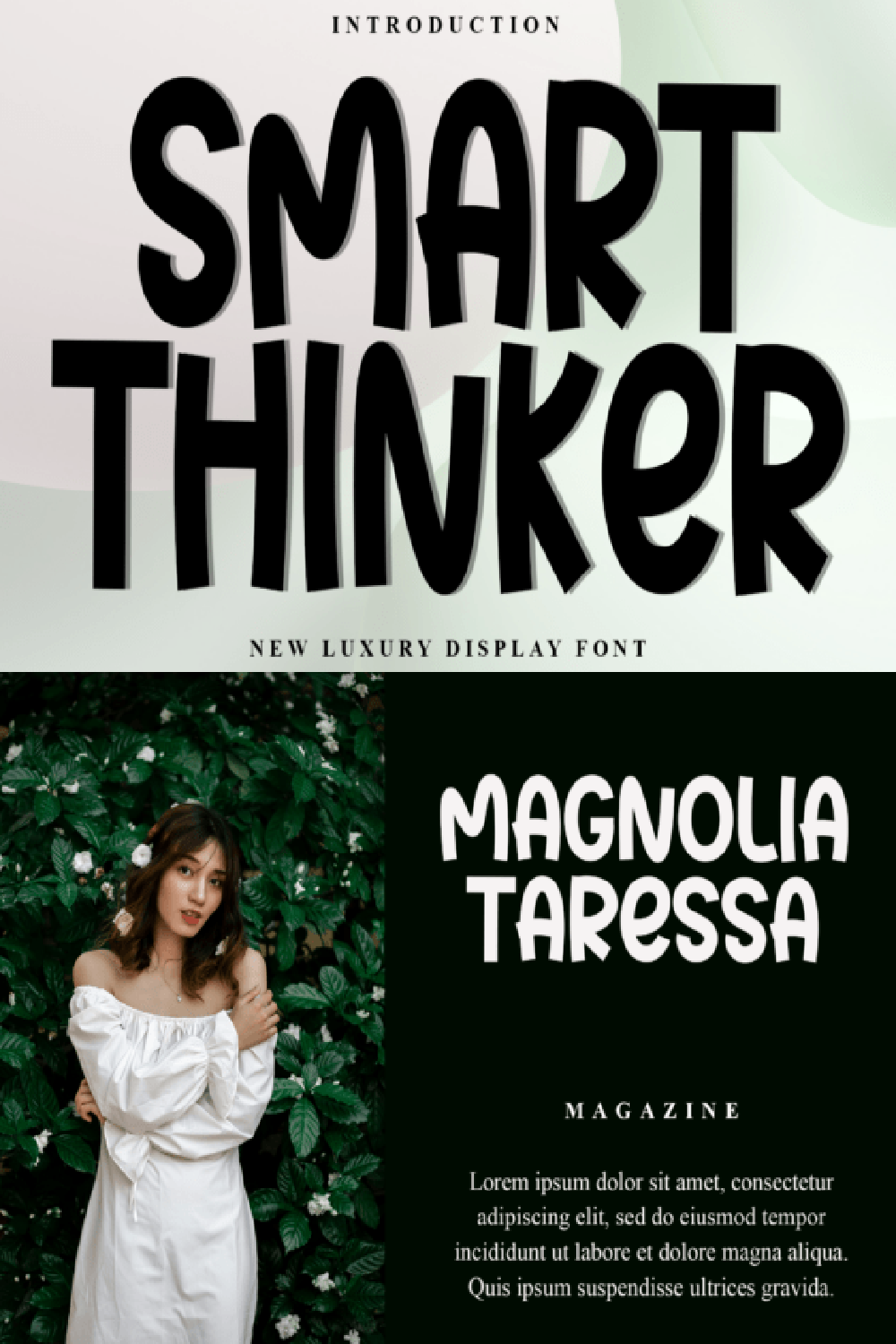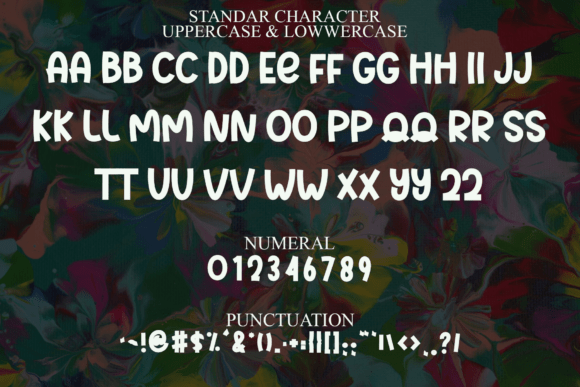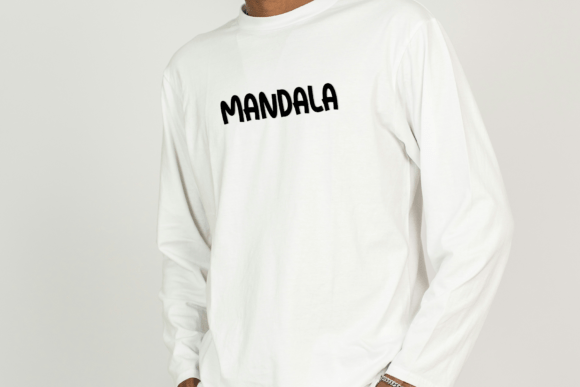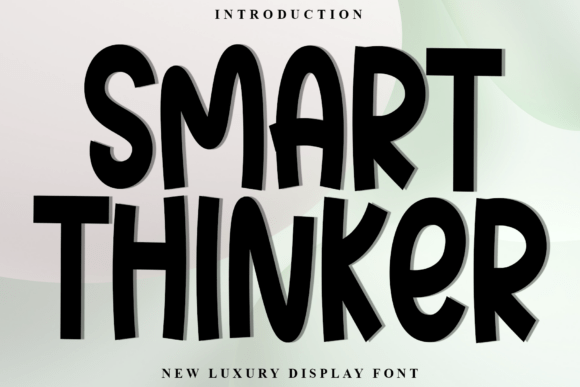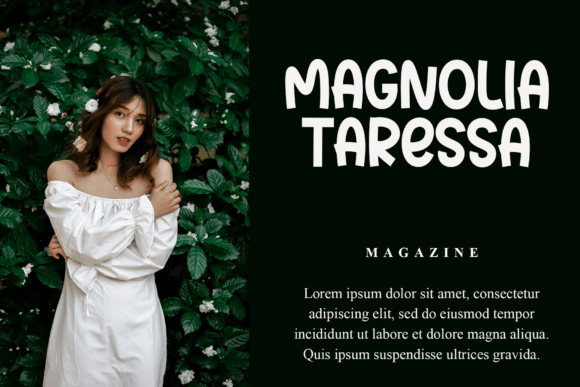
Smart Thinker Font
About the Smart Thinker Font
Welcome to the world of Smart Thinker Font, a typeface that will inspire your next great project. Smart Thinker is a casual and creative font that exudes warmth and friendliness. Its round, playful strokes create a relaxed and approachable feel, perfect for personal projects, invitations, and social media graphics. The font’s charming, hand-drawn aesthetic adds a fun and unique touch to any design.